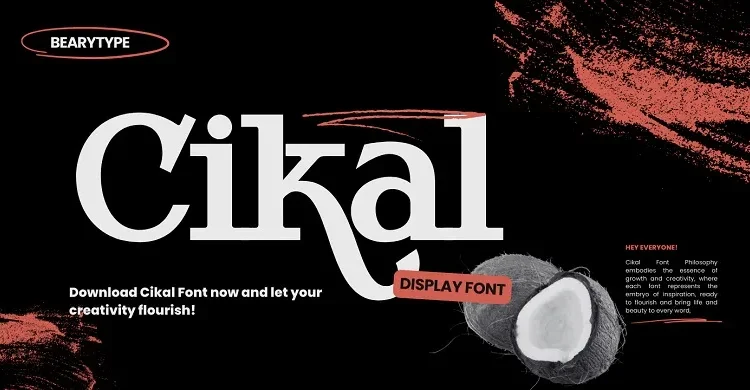
Cikal Font
Cikal, derived from a word symbolizing the birth or beginning of life, embodies the essence of growth and new beginnings. This concept is at the heart of our Cikal font collection. Just as a cikal represents the initial stage of plant development, each font in this collection serves as the foundation for ideas that will flourish and evolve.
Designed with meticulous care, every Cikal font captures the spirit of growth, making them perfect for those who aim to highlight the beauty in every word. These fonts are crafted to bring your creative visions to life, allowing your designs to bloom with elegance and purpose.